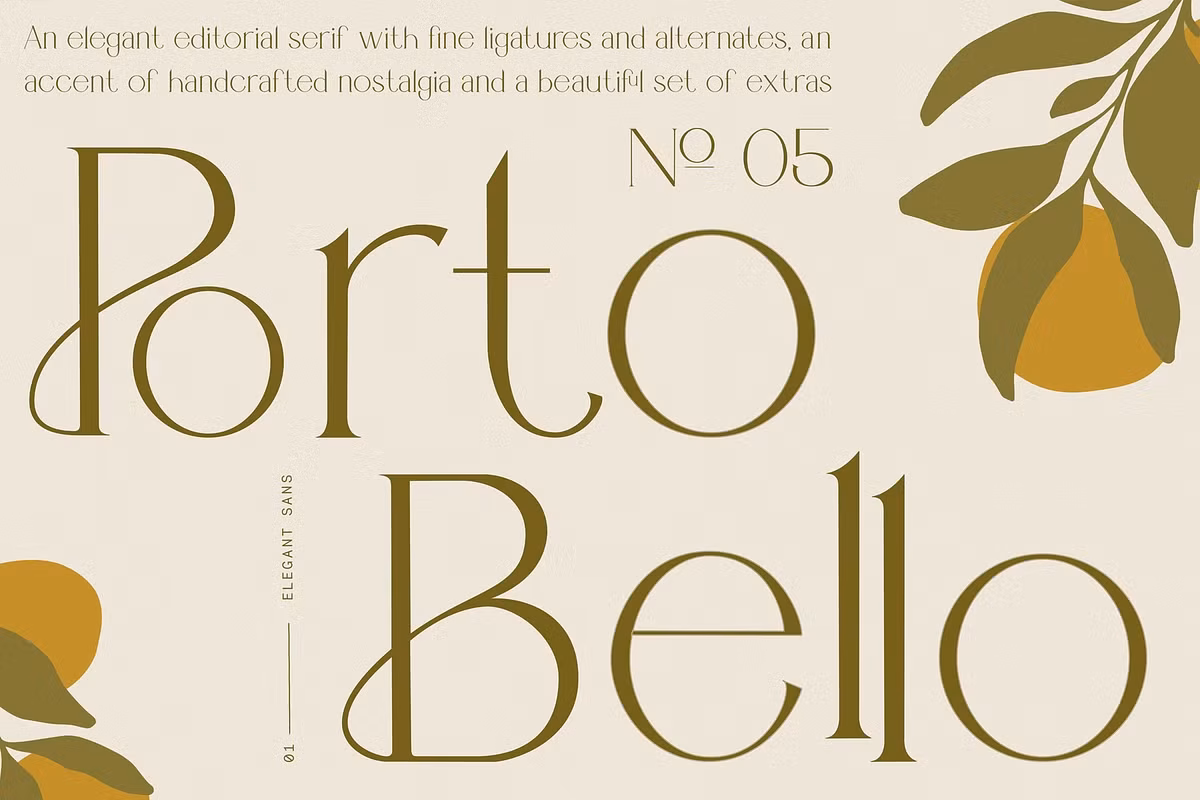
Portobello Display Ligature Font Free Download is a striking and elegant typeface designed to add a touch of sophistication to your designs. With its unique ligatures and distinct letterforms, this font is perfect for creating high-impact logos, branding materials, posters, and headlines. Its refined design and stylish ligatures provide a creative and artistic flair, making it ideal for fashion brands, luxury products, or modern creative projects. Whether you’re working on a brand identity, event promotion, or a high-end design, Portobello Display Ligature Font Free Download allows you to experiment with its distinct style in personal projects before purchasing a commercial license. Add elegance and creativity to your designs with this beautifully crafted display ligature font.